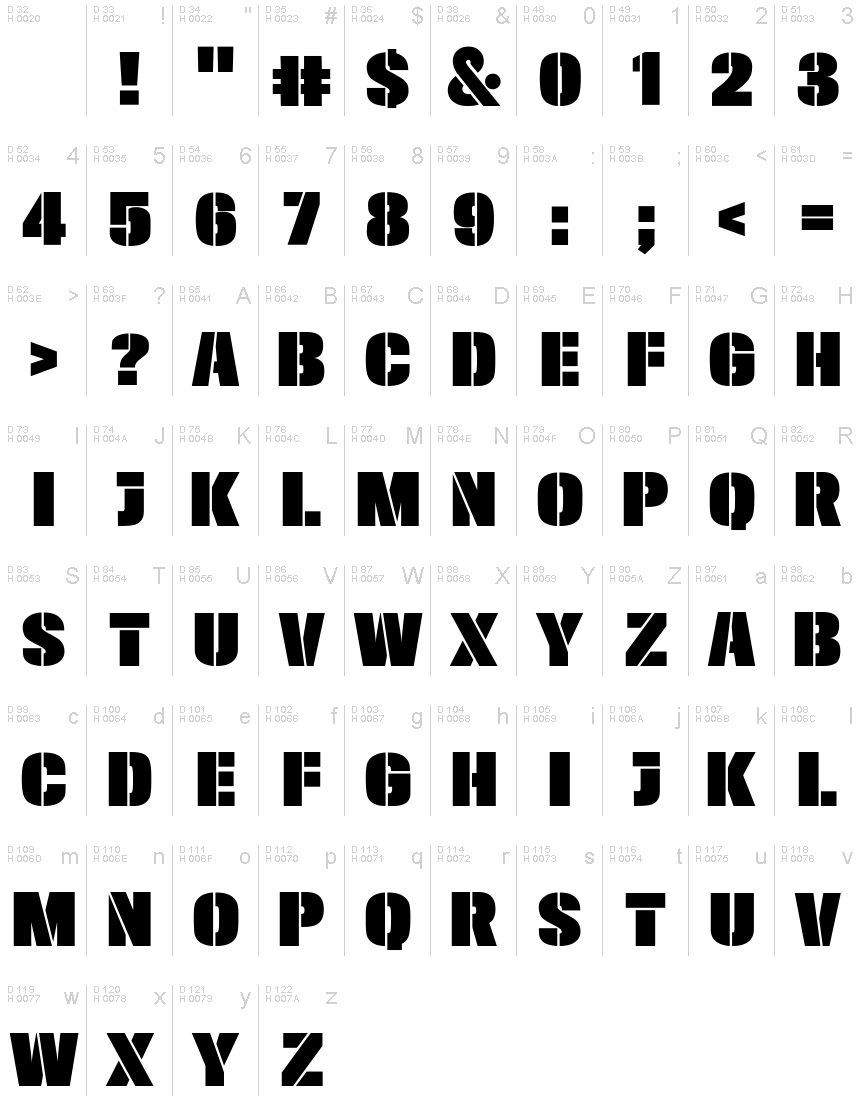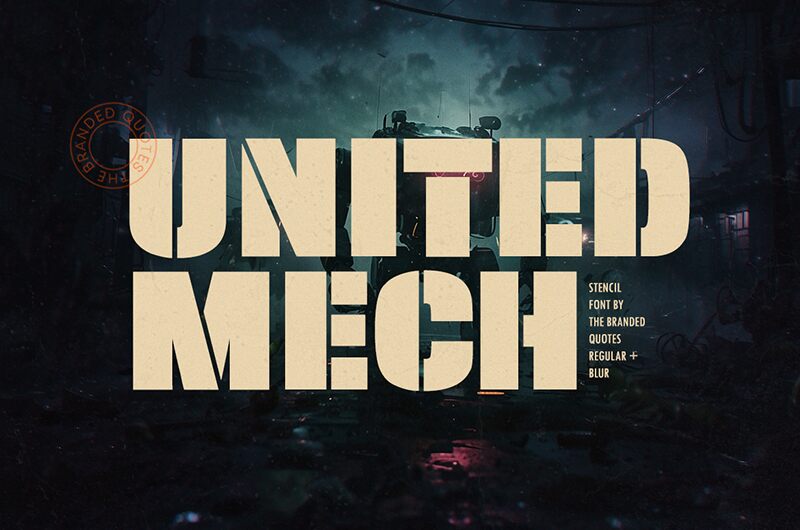
United Mech Demo
United Mech is a captivating stencil font crafted by The Branded Quotes. Inspired by the futuristic elements found in modern science fiction and popular tactical video games, this font exudes a sense of strength and professionalism. Its clean lines and bold appearance create a striking, militaristic aesthetic that immediately commands attention.
The font's two distinct versions offer versatile design possibilities, allowing creators to seamlessly integrate its unique visual identity into a wide range of projects. From eye-catching branding and packaging to dynamic user interfaces and promotional materials, United Mech's distinctive flair can elevate any design, infusing it with a futuristic, high-tech allure.